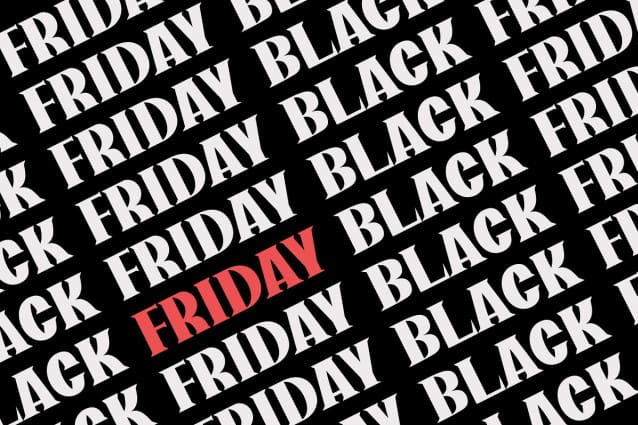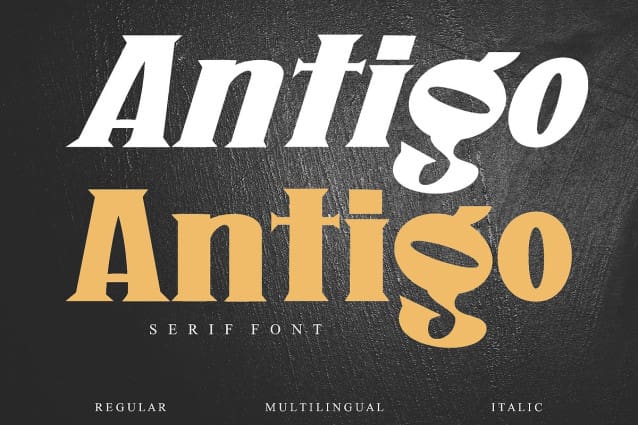
Antigo Font
Antigo Font, the epitome of elegant and high-end sophistication in the realm of serif fonts. Immaculately designed, Antigo showcases a professional aesthetic that seamlessly blends classic elements with modern simplicity. The grace of its curves and the strength in its lines are drawn with an acute attention to detail, resulting in a typographic masterpiece that underscores professionalism and elegance. Crafted with great precision, Antigo Font stands as a testament to a bold yet refined design ethos that will enhance and elevate your creative endeavors.